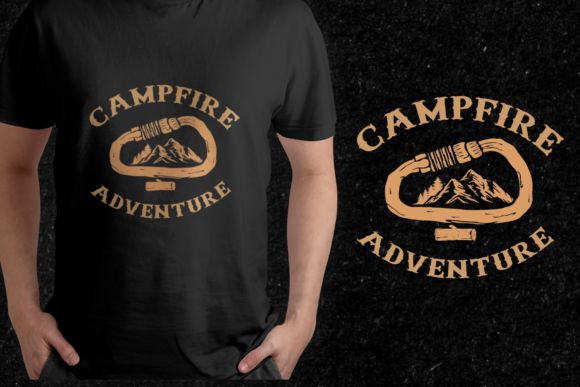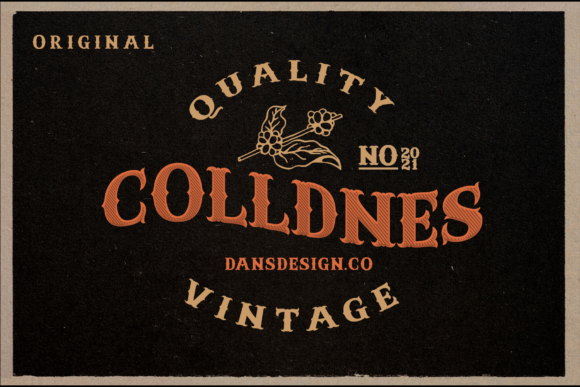
Cooldnes Font聽 Font
Cooldnes Font聽 Font is a free, unique, and cool font. This font is FREE to Download and suitable for designs such as t-shirts, sportswear, posters, logos, advertisements, clothing, and more.
Cooldnes Font聽 Font is a free, unique, and cool font. This font is FREE to Download and suitable for designs such as t-shirts, sportswear, posters, logos, advertisements, clothing, and more. Whatever the topic, this font will be a great asset to your font collection, as it has the potential to enhance any creation.